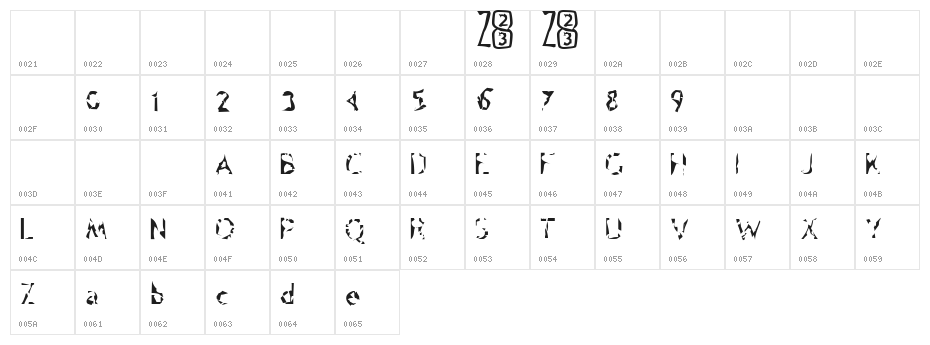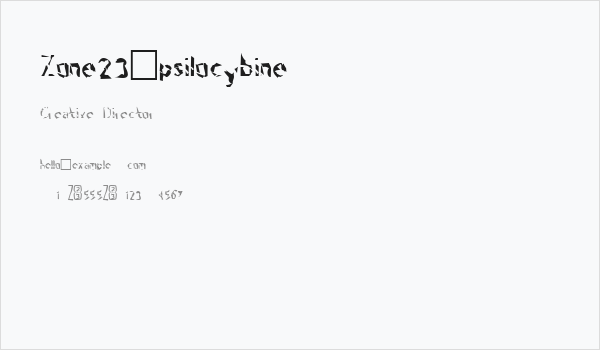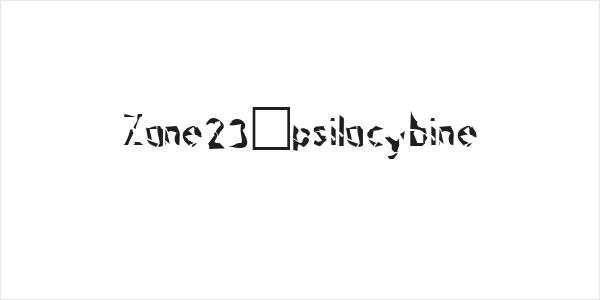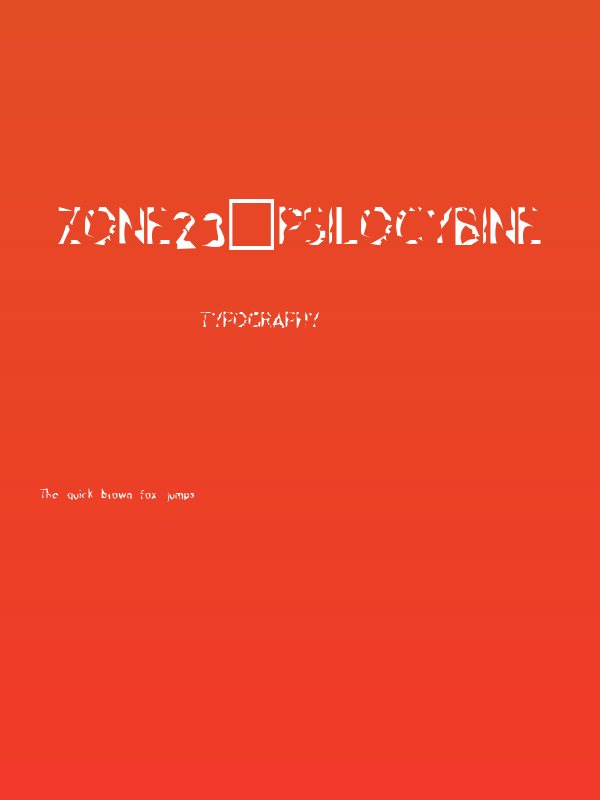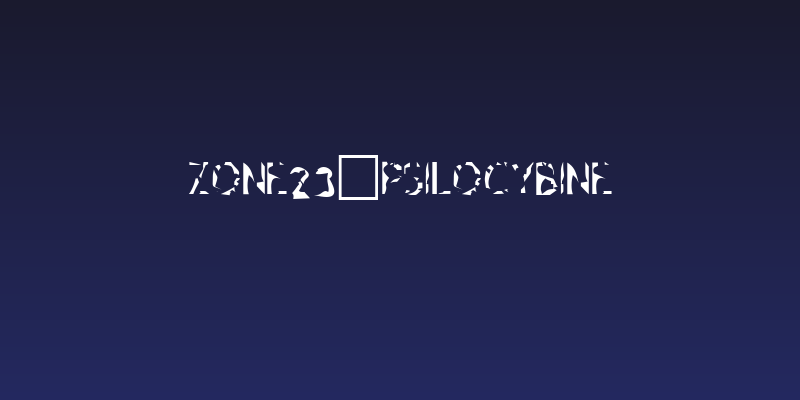
Zone23_psilocybine Font
Zone23_psilocybine Description
This font features a highly decorative and abstract style, characterized by fragmented and angular shapes that create a sense of movement and dynamism. The letters are composed of sharp, irregular cuts and negative spaces, giving it a unique, edgy appearance. The uppercase and lowercase letters maintain a consistent design theme, with each character appearing as if it has been shattered or deconstructed. The numbers and special characters follow the same aesthetic, ensuring a cohesive look across all glyphs. This font's distinct style makes it stand out, offering a visually striking option for creative projects.
| Use Case | Headlines, Logos, Artistic Displays |
| Proposed Projects | Ideal for artistic posters, album covers, modern art exhibitions, or any project seeking a bold, avant-garde look. |